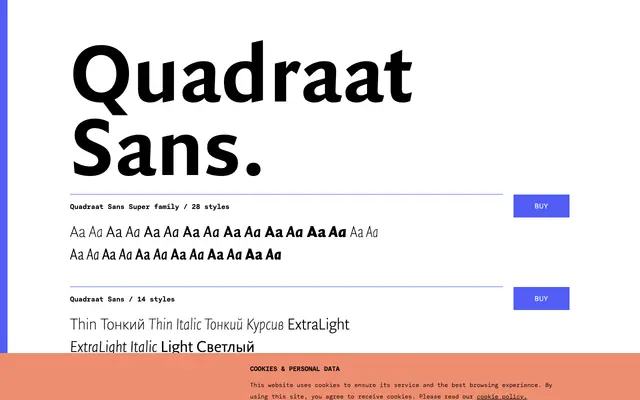
Quadraat Sans
A 28-style humanist sans superfamily spanning regular and condensed widths across seven weights, with extensive OpenType features and Cyrillic support.
The sans-serif companion to the Quadraat family, this superfamily runs across 14 regular styles and 14 condensed styles, each with matching italics from Thin to Black. Humanist proportions give it warmth at text sizes, while the condensed subfamily extends its range into tighter measures and display work. OpenType features include small capitals, multiple figure sets, fractions, historical forms and a slashed zero, with both Latin and Cyrillic scripts covered.
Quadraat Sans is the sans-serif companion to the Quadraat serif family, exhibiting humanist proportions and the calligraphic warmth typical of humanist sans designs rooted in Renaissance letterform traditions.